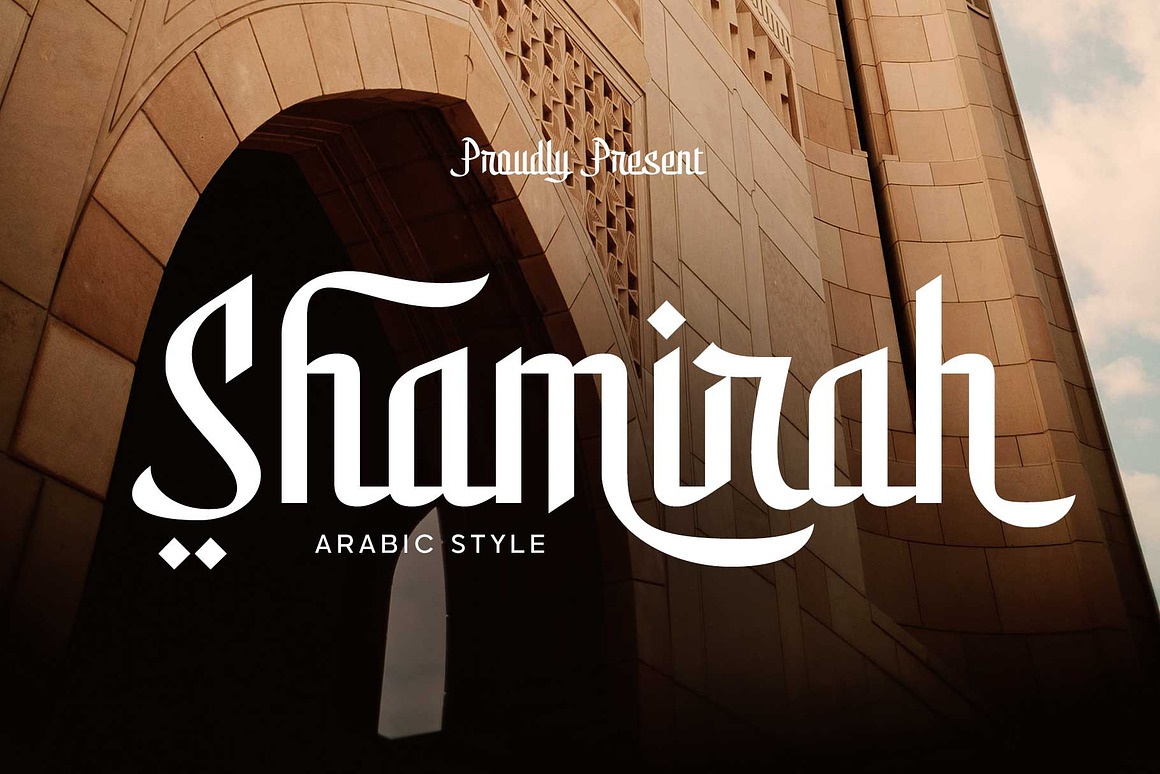
About Shamirah
Shamirah was born from the quiet beauty of Middle Eastern architecture, where soft light touches stone walls and elegant arches create a sense of calm. Inspired by Arabic aesthetics, this display font blends sharp details with flowing curves to capture both tradition and grace.